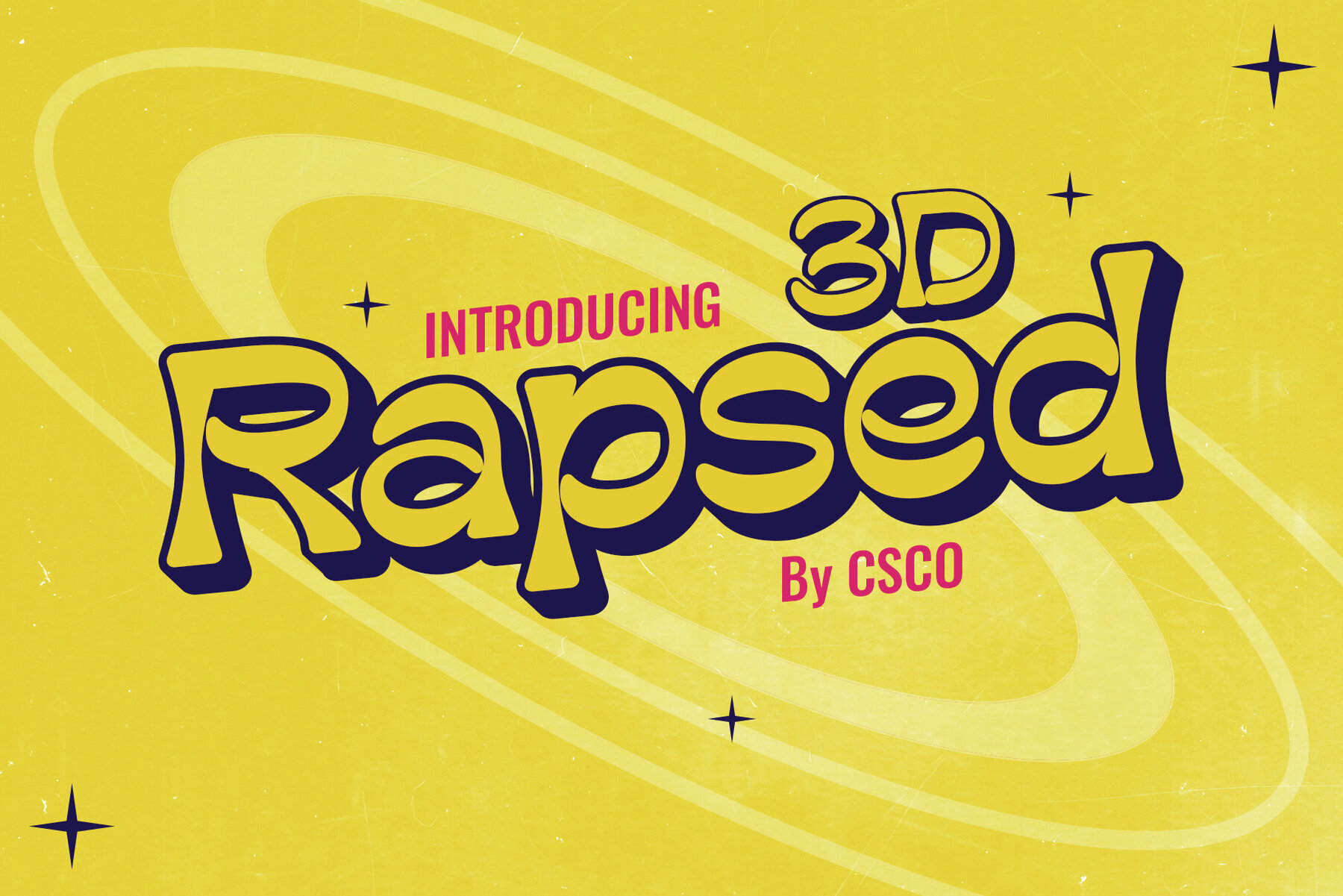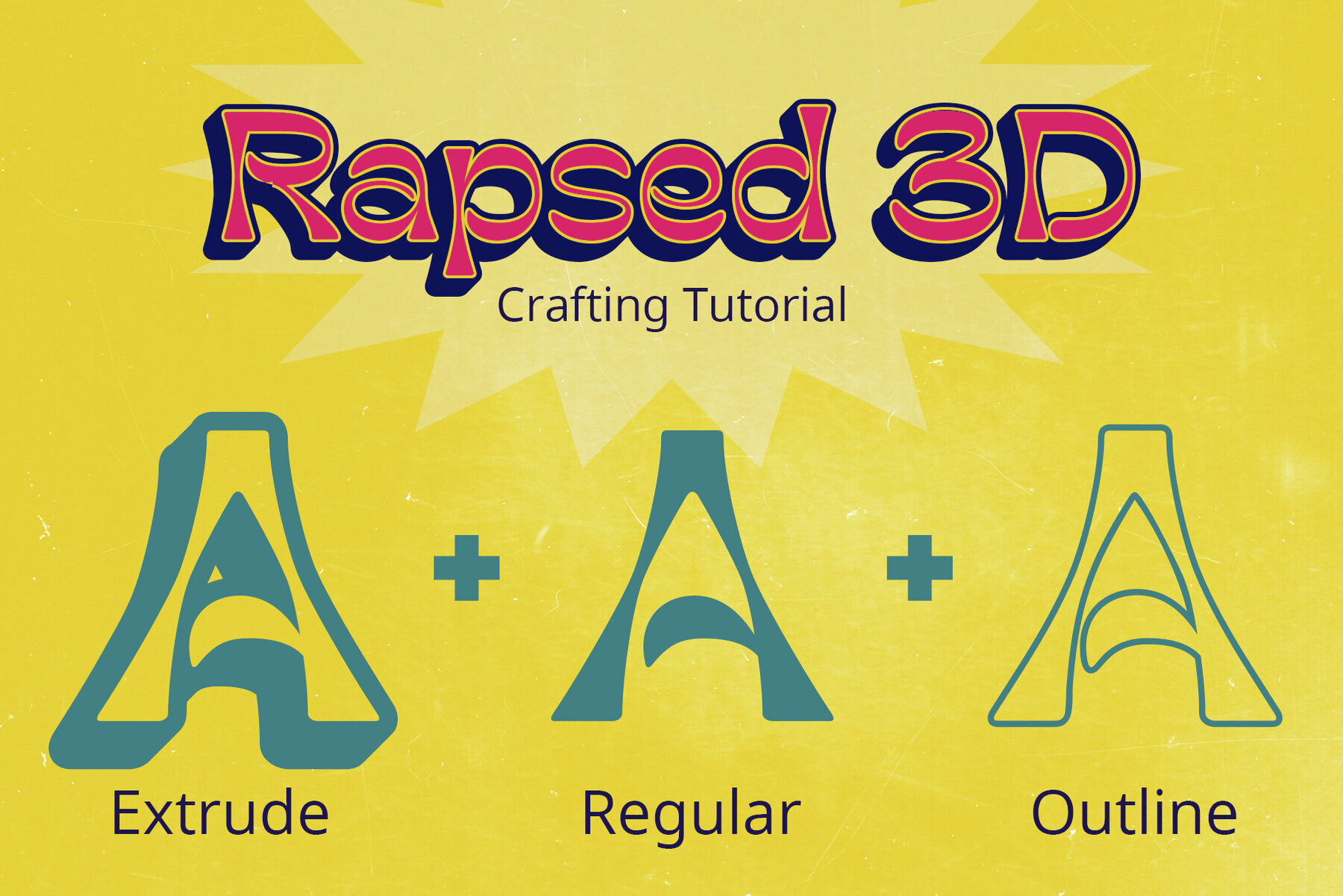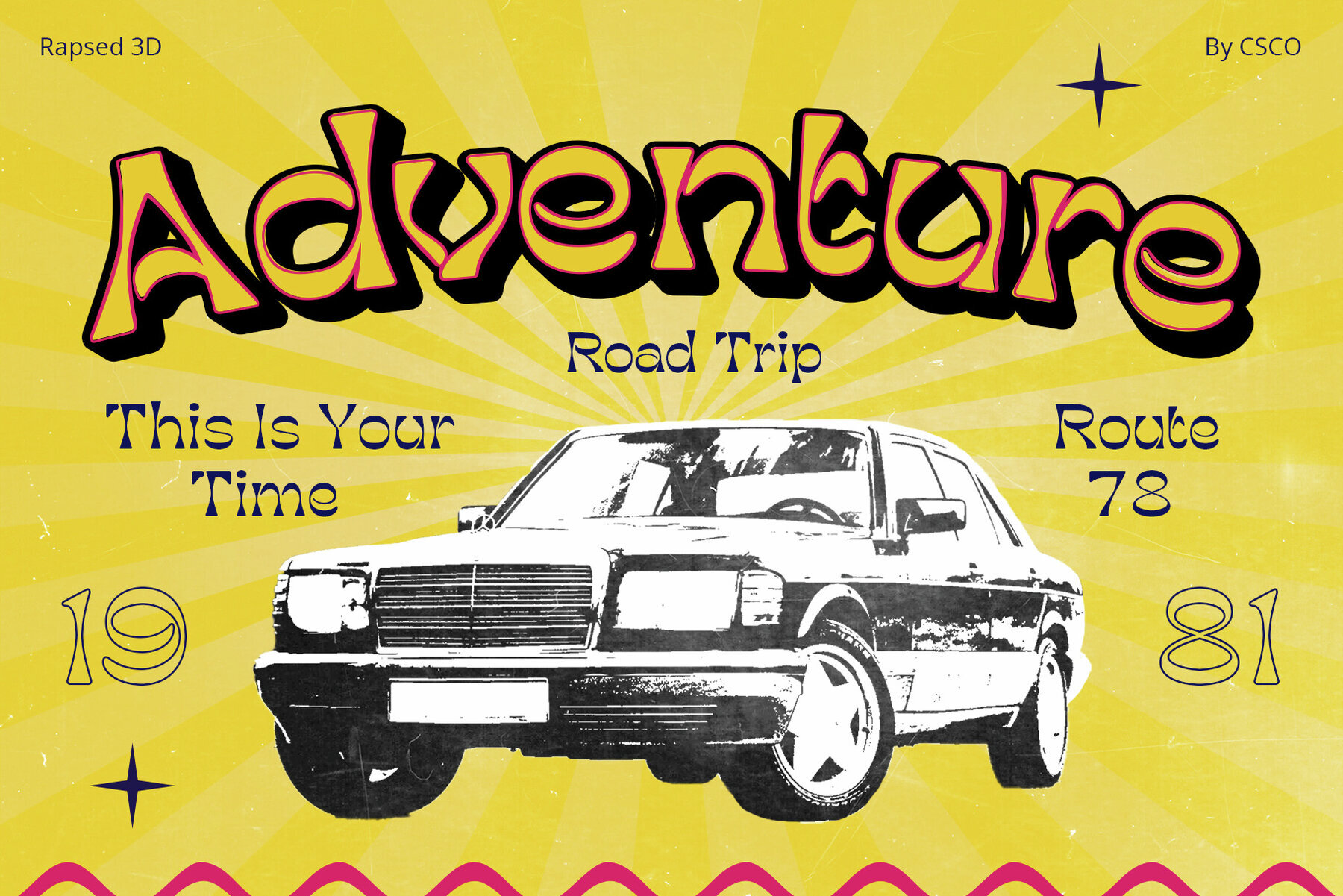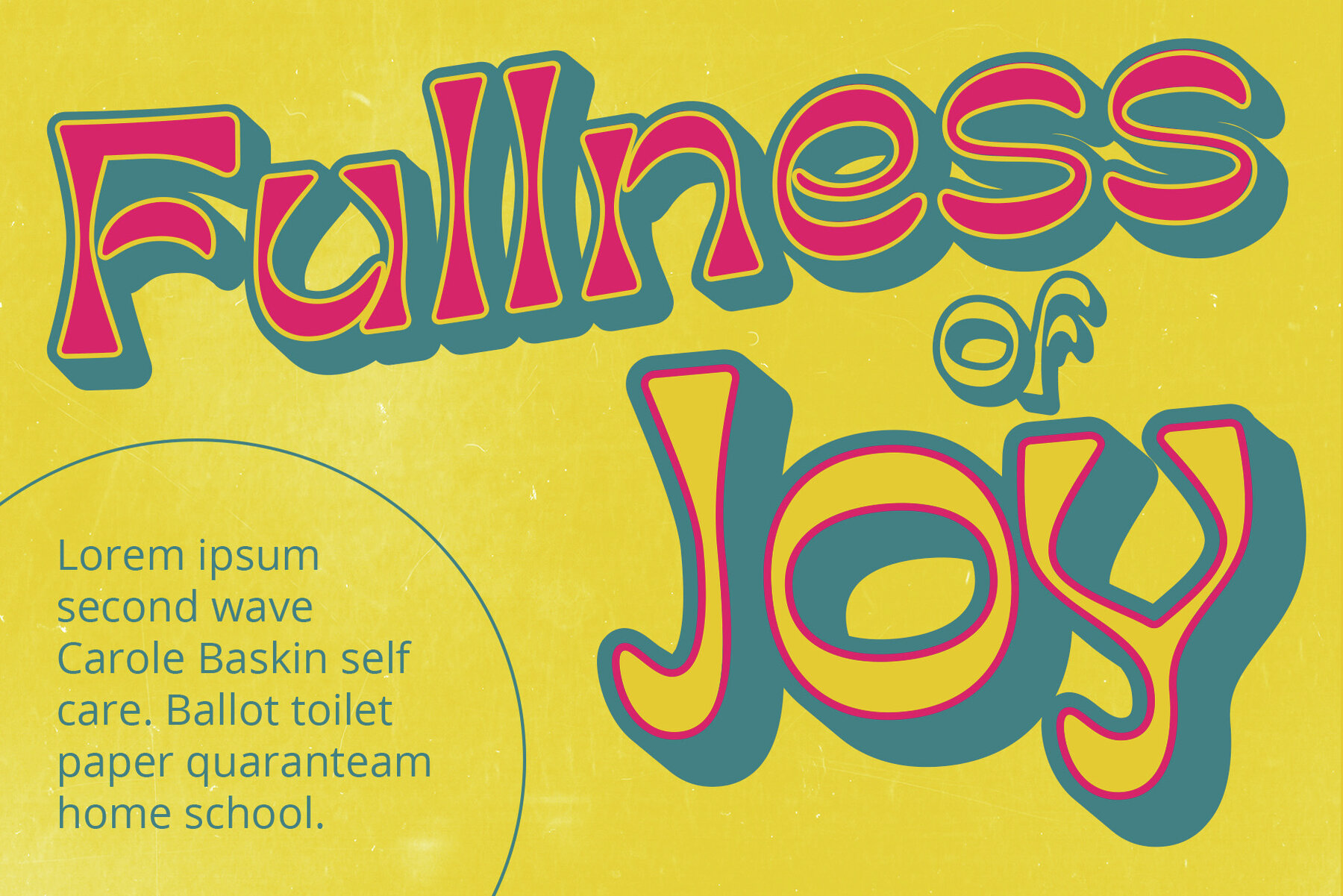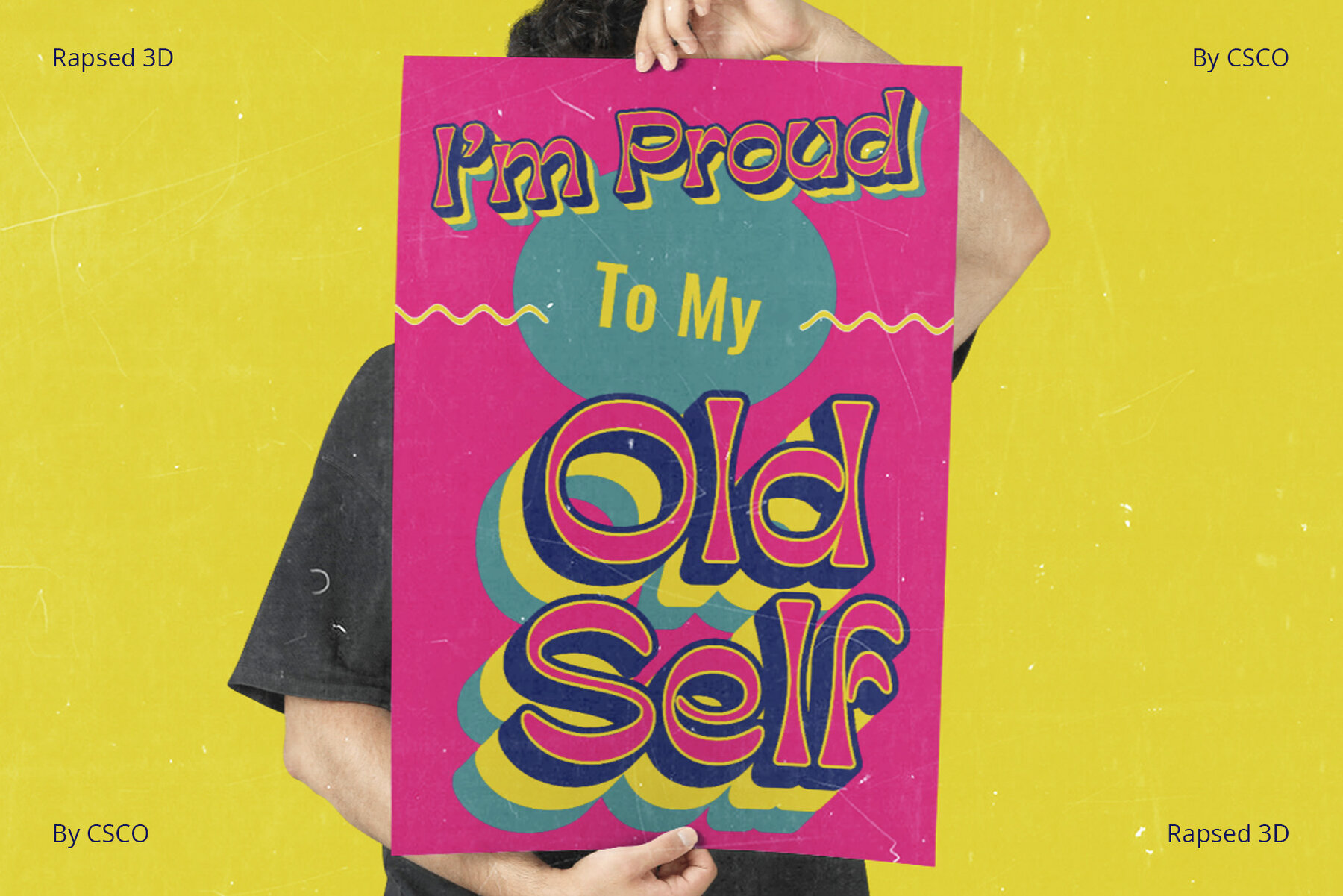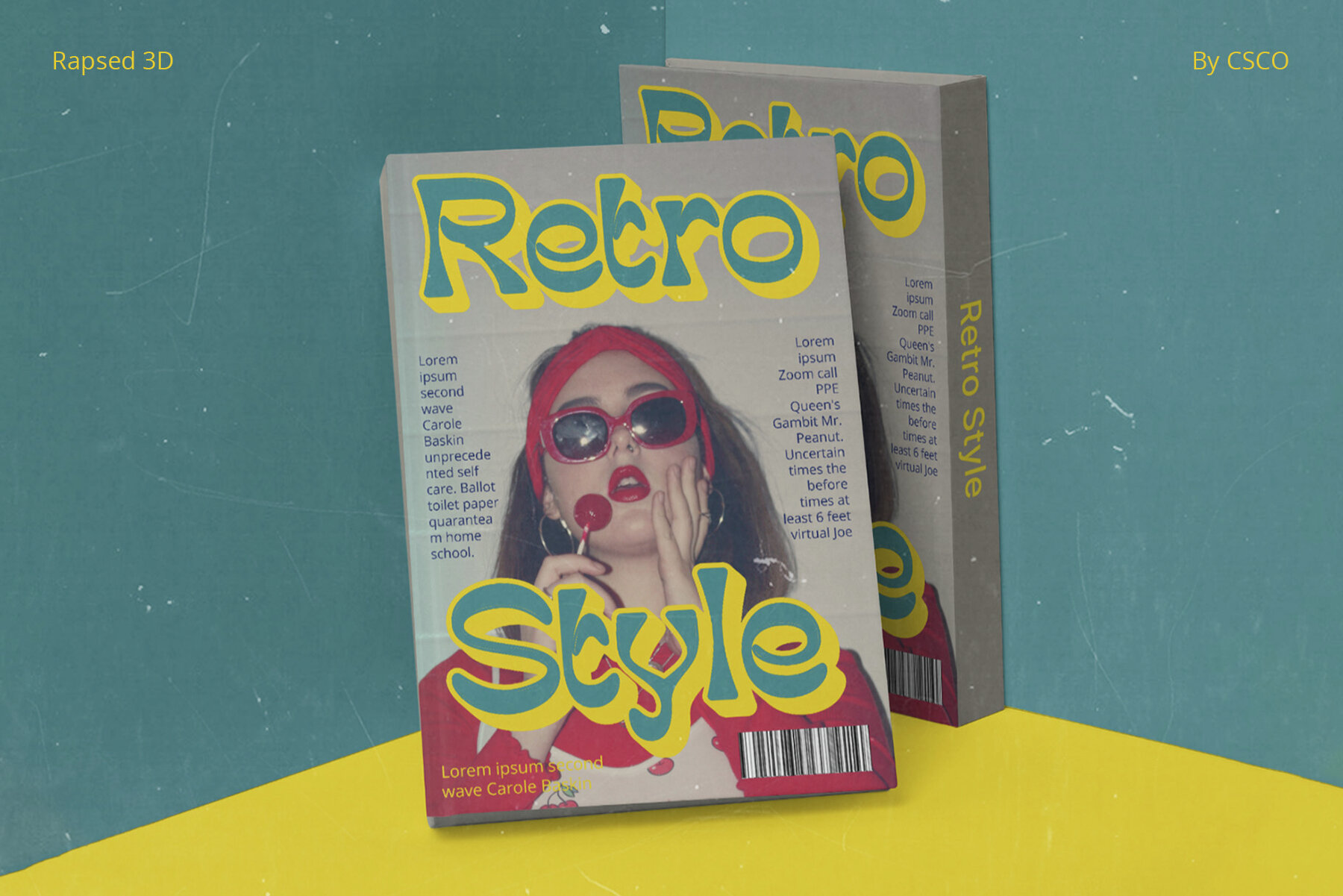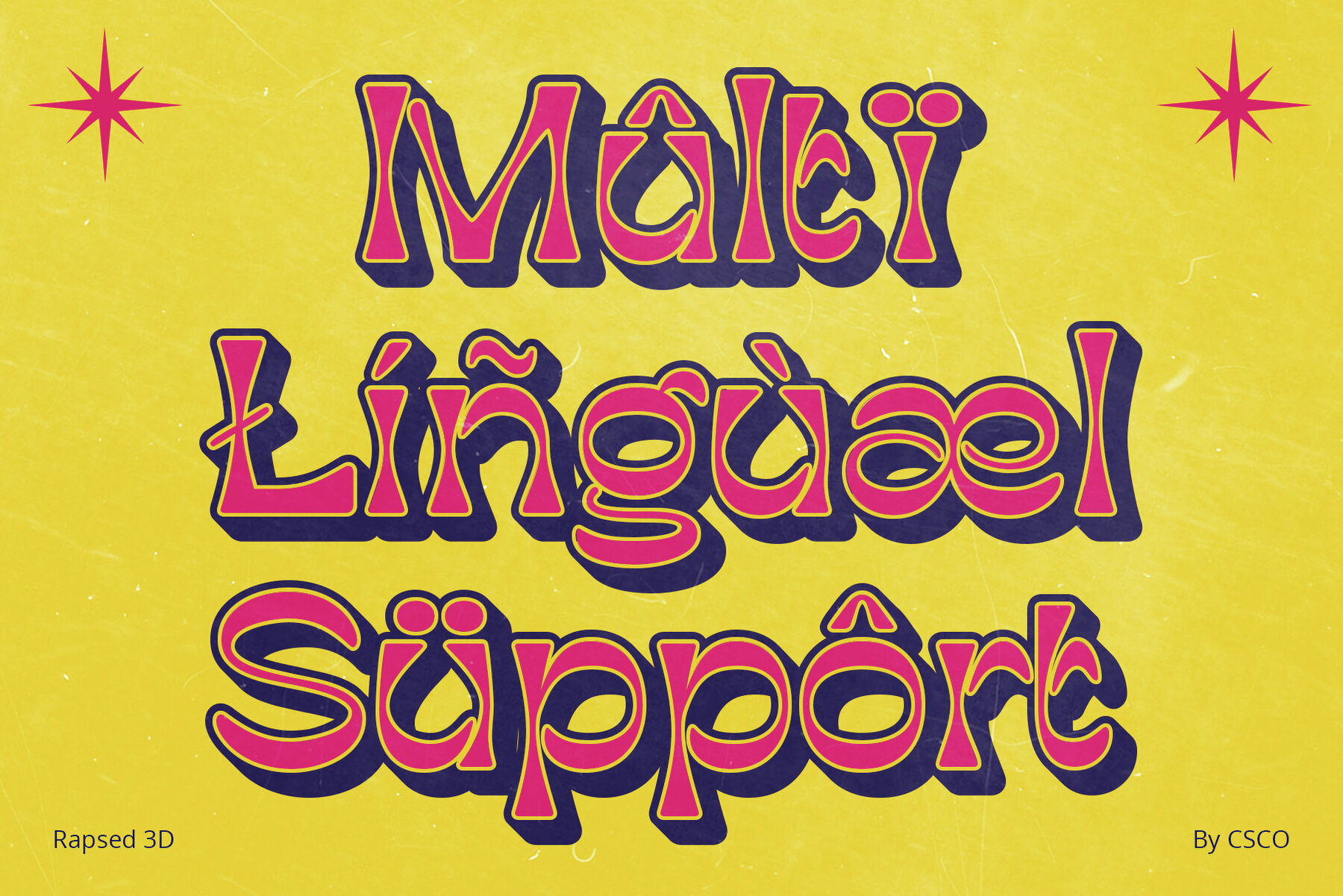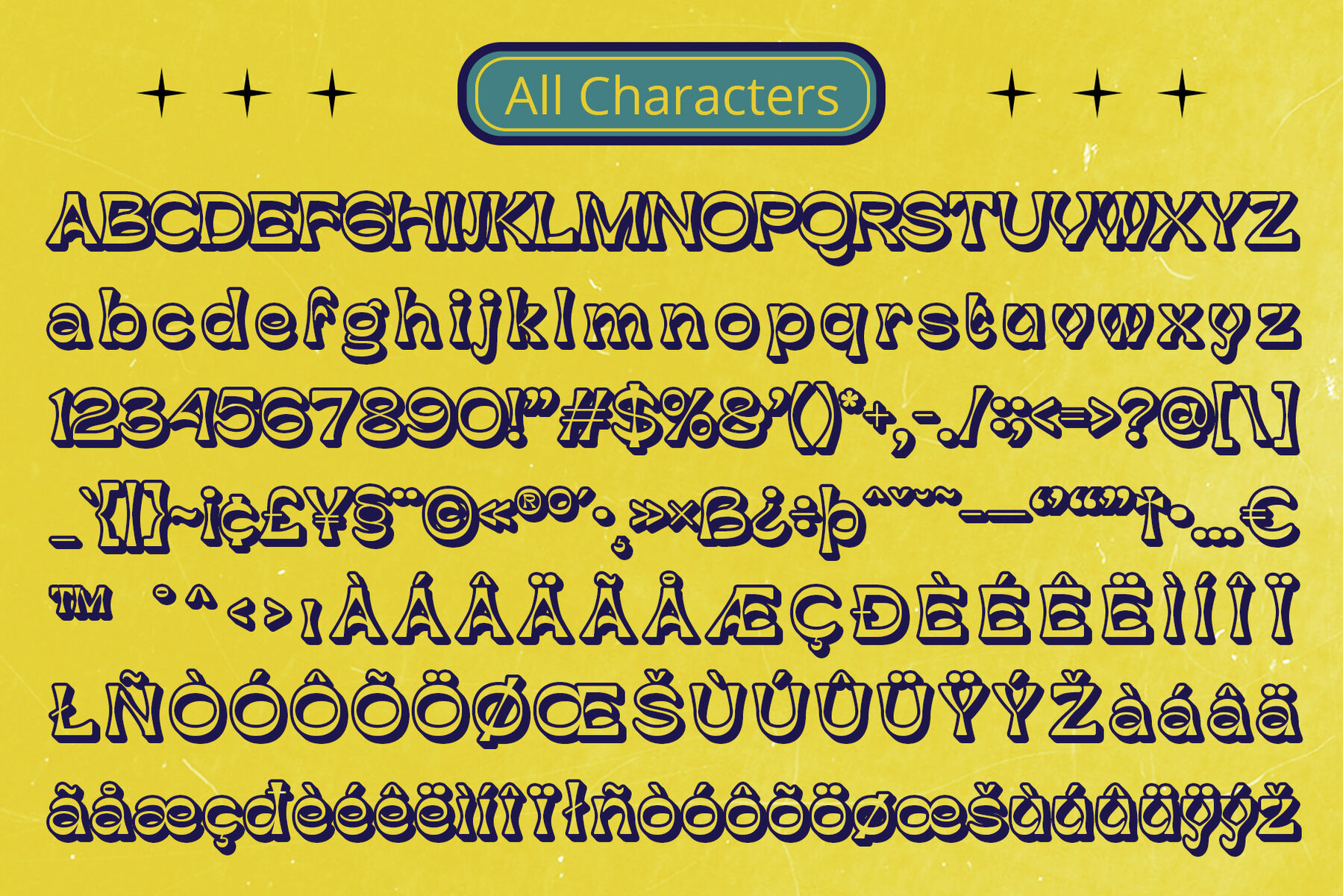
Rapsed 3D Font
Experience the charm of the 90s with Rapsed 3D, a sans serif display font that embodies retro vibes through every character. This font captures a sense of nostalgia while bringing a modern twist to your designs. Inspired by the era of pixels and grunge, Rapsed 3D features an extrude effect, giving each letter a three-dimensional presence. Its unique design elevates any project with its dynamic look. Rapsed 3D includes a sleek outline that enhances its 90s aesthetic, adding a contemporary flair to the vintage style. This combination ensures the font remains fashionable and relevant. Beyond its nostalgic appeal, Rapsed 3D is versatile enough for various design needs—be it posters or web banners. It effortlessly introduces a dose of dimensional charm to every project. Rapsed 3D transforms your designs into a time machine, delivering the iconic feel of the 90s with a modern edge. This 3D retro masterpiece is perfect for adding a mix of nostalgia and contemporary style to your creative work. You can use this typeface without needing any specialized software. If you have any inquiries or need assistance, please feel free to contact us. We appreciate your support in enhancing your creative projects! Best regards, Craft Supply Co.Rapsed 3D: A Nostalgic Journey to the 90s
Dimensional Throwback
Outline Chic
Versatility Reloaded
Conclusion